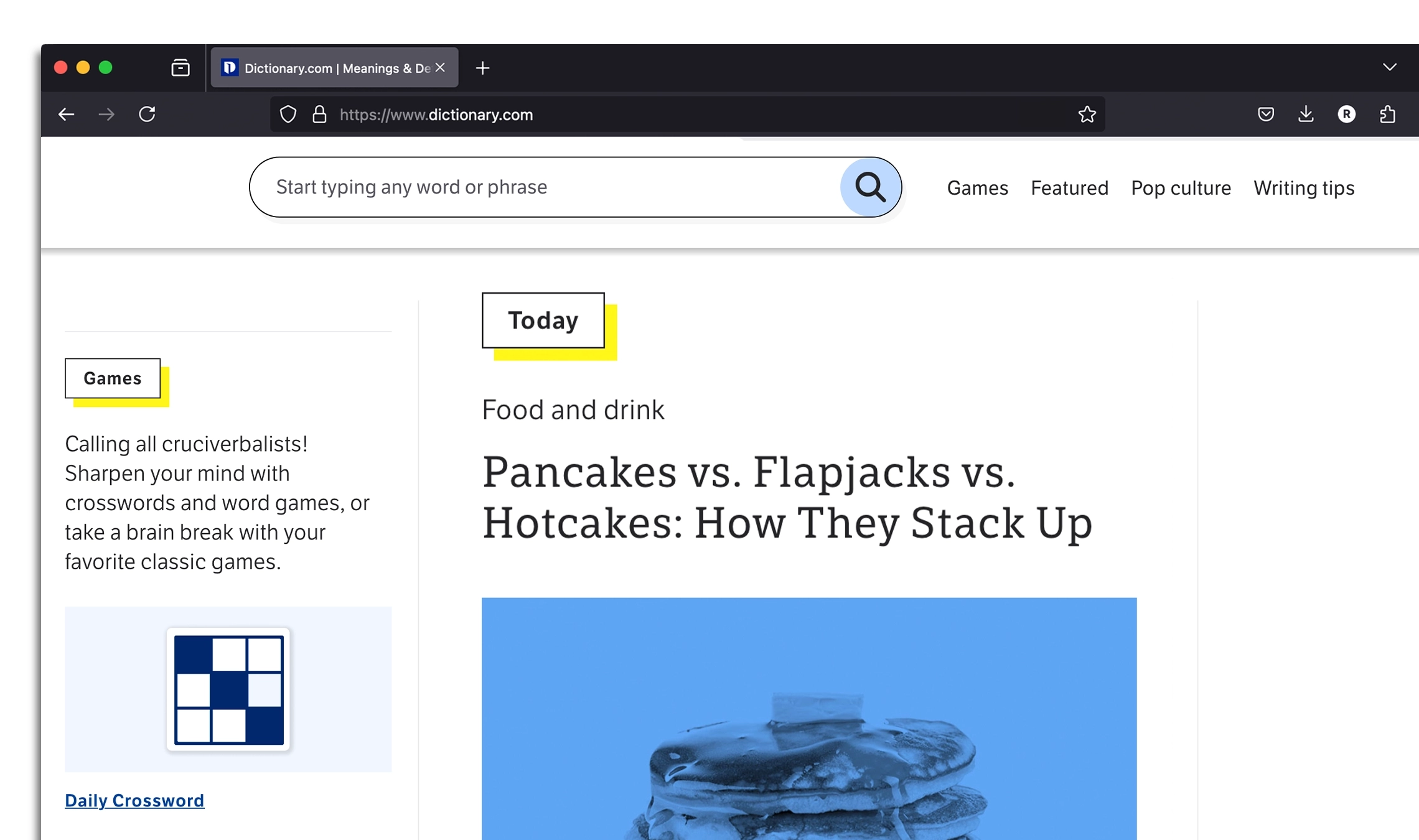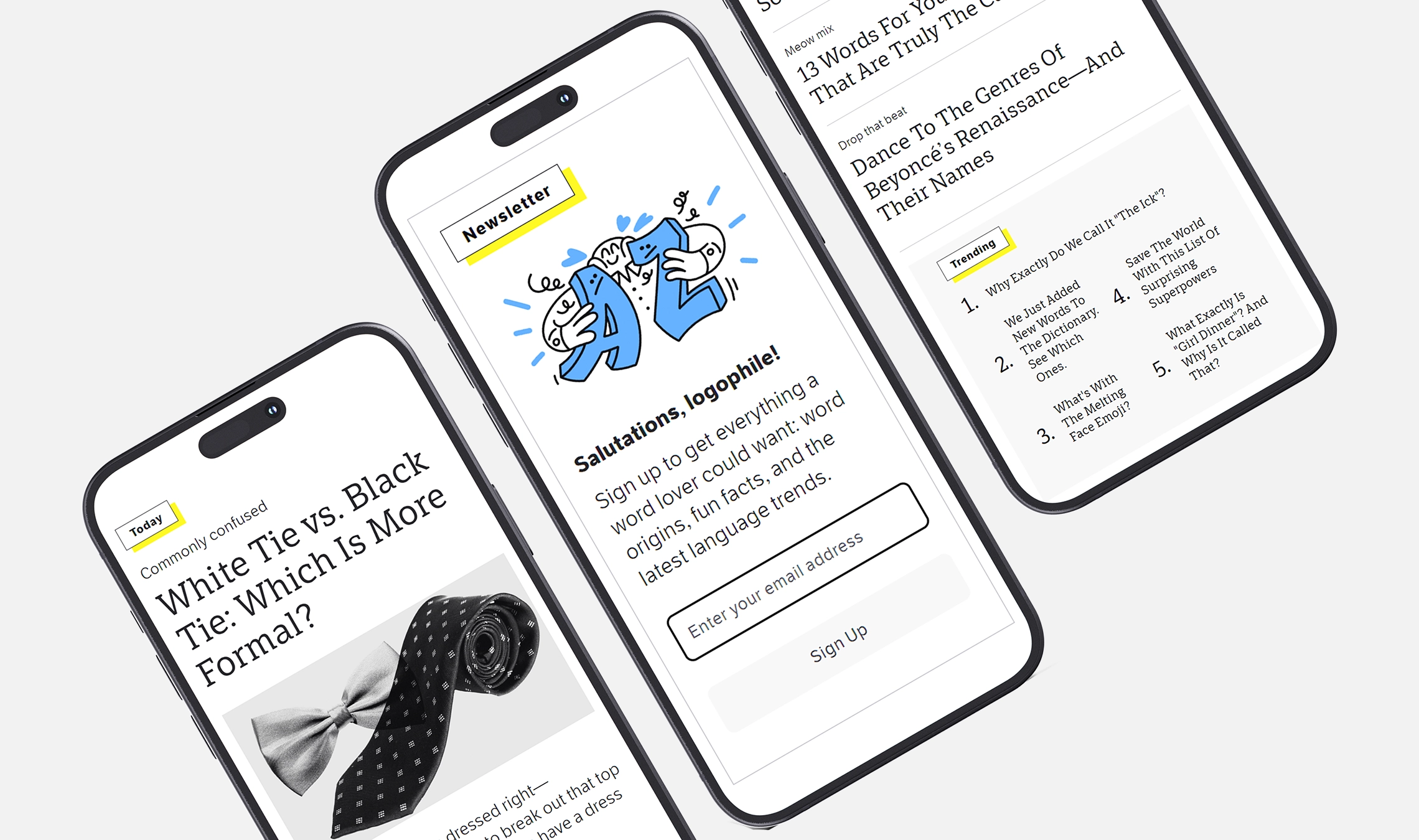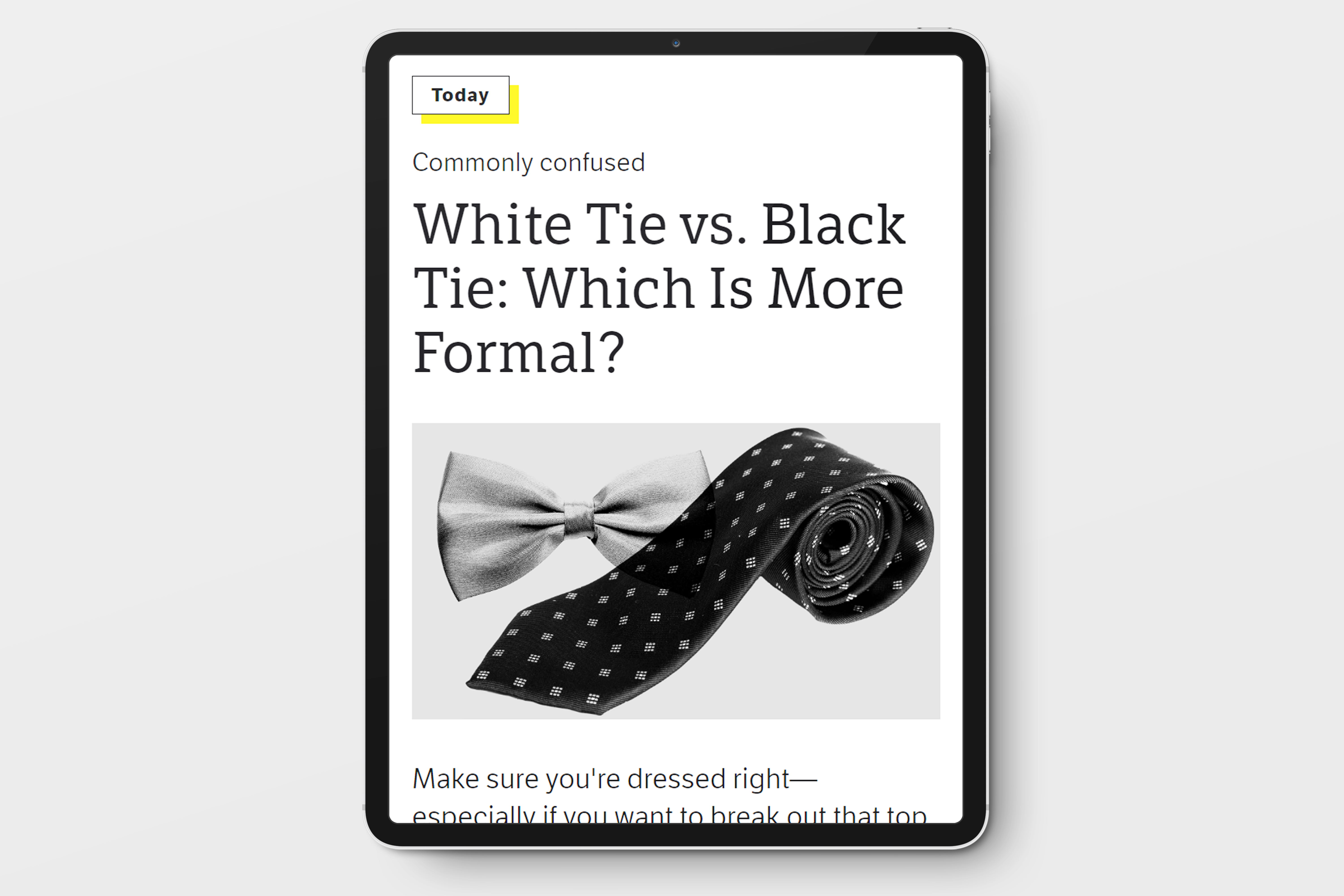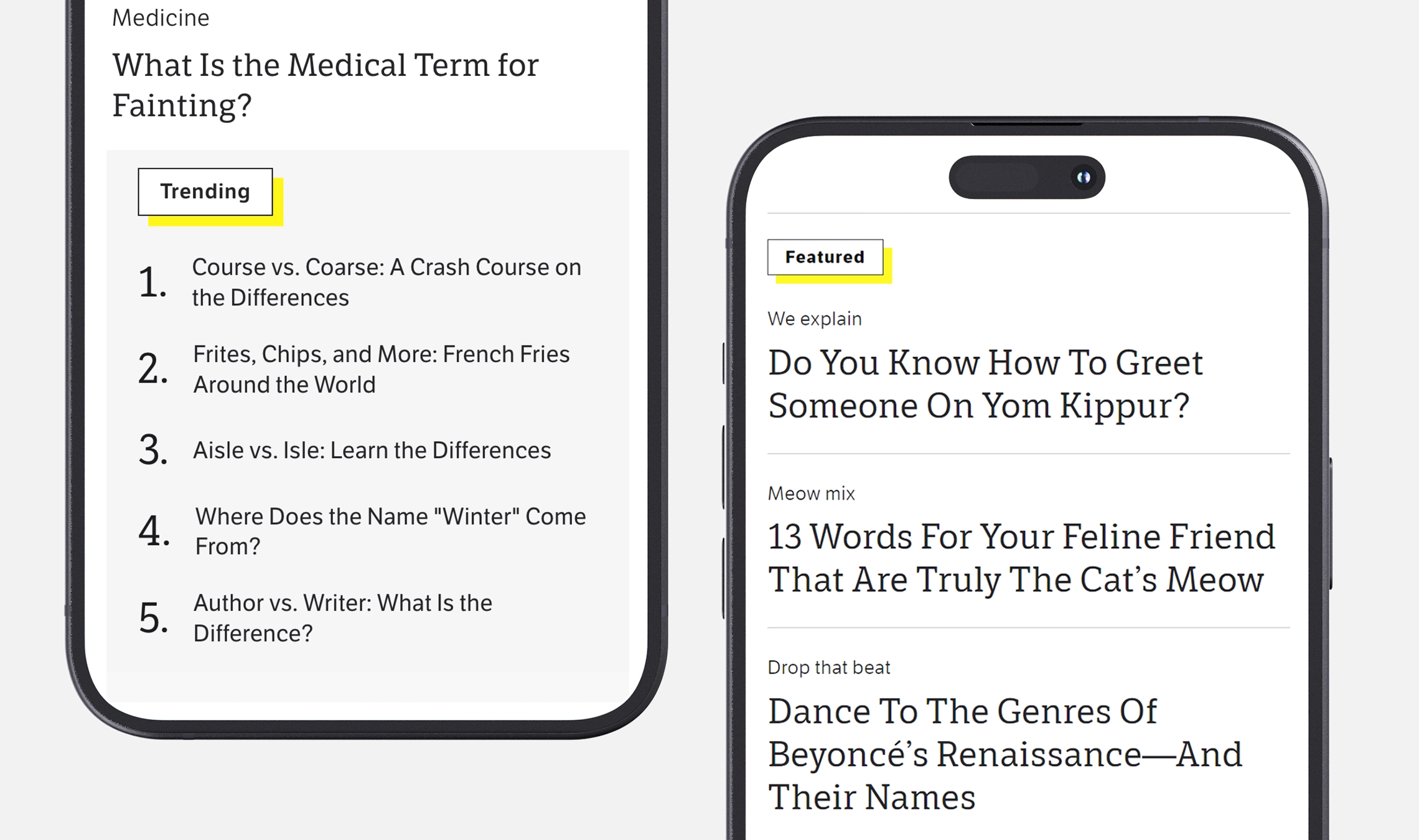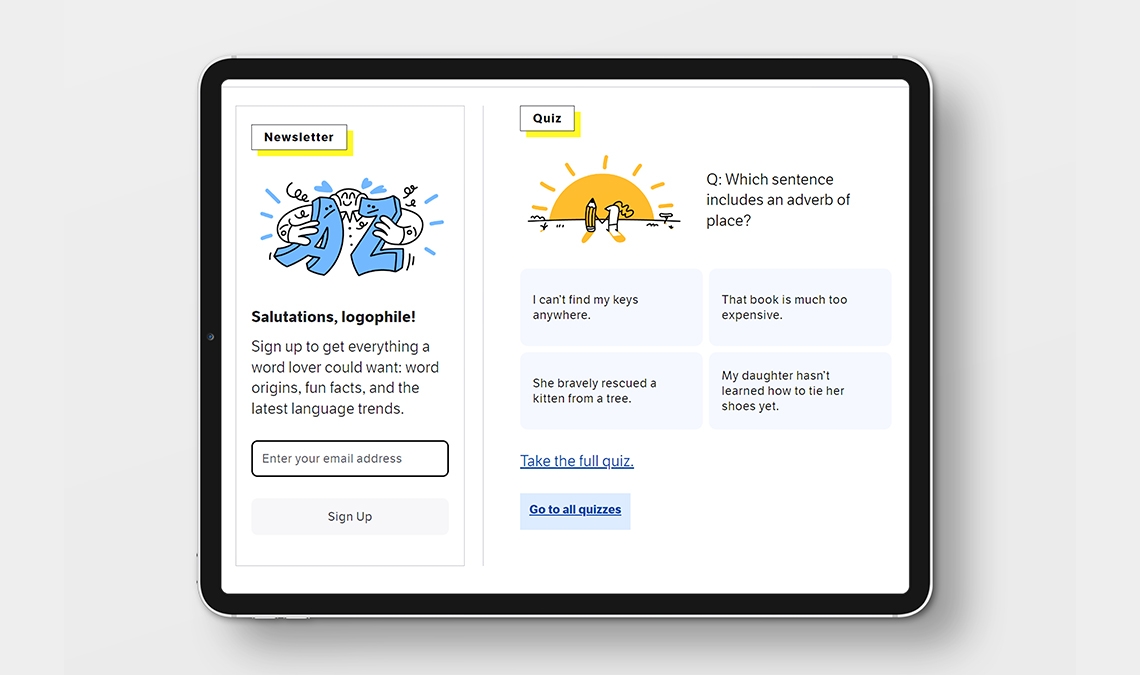
Words have meaning; they also carry a tone. No one knows better how to distinguish between connotation and denotation than dictionary.com, the foremost online resource for words and their meanings. Joined by its sister website, thesaurus.com, the two provide a command of the English language that inspires confidence and learning, depth and insight.
When a website is all about words, those words should have several properties: they should be readable, distinct, and attactive but not overwhelming. To facilitate a clear hierarchy, quick gathering of information, and easily-read text, dictionary.com and thesaurus.com chose Leftloft’s full Etica family for their rebrand. Besides the hierarchy and readability advantages, the Etica family imparts a sense of joy while reading. George Frederick explains more in this interview.
TypeTogether: Give us some background for dictionary.com. Can you tell us how many visitors use the website per month and how many entries are in the database?
George Frederick: Dictionary.com and its sibling, thesaurus.com, are household names. Since they launched as the first fully digital dictionary and thesaurus in 1995, they have accumulated a massive, loyal audience and a lot of words:
40 million unique visitors per month in the United States
An additional six million visitors per month worldwide
Two million newsletter subscribers
Roughly two million followers on social media
250,000 definitions in the database, plus 1.4 million synonyms
TT: What are users looking for from dictionary.com, and how did that translate into your design brief?
GF: Dictionary.com has a fantastic audience that basically breaks down into two types of people. The first are utility seekers. They look up definitions, synonyms, example sentences, and word origins. They have tasks to complete, jobs to do, homework to finish, and questions to answer — quickly. The second are language lovers. This core audience returns to dictionary.com regularly for the love of words and language. This is their space to enjoy the dictionary experience, to explore, celebrate words, and fulfill curiosity.
Addressing the needs of these two groups was challenging for our typeface selection, but less so for our redesigns. Our design strategies clarified as we worked through segments of our redesign. For example, we approached our homepage design as a digital abiding place for language lovers, a place to return and discover new material every day. This was a dramatic change of direction from the previous homepage design. Our definition and synonym pages were built for the utility seekers and involved a fascinating deep dive into lexicographic structure and design patterns. Uninformed innovation here could have introduced major usability issues.
Our redesign team — including representatives from design, product, and engineering — partnered closely with editors and lexicographers from our smart and talented content team to understand how design and typography could elevate and enrich the user experiences.
TT: Why did you choose TypeTogether’s LFT Etica and LFT Etica Sheriff families?
GF: Are you sitting comfortably? Because I could go on for a long time answering this question, but I’ll try to be succinct.
We were under a tight deadline for choosing new typefaces, with redesign, brand refresh, and design system projects beginning simultaneously. Plus, we were in the middle of a sitewide code refactor. We didn’t have the advantage of addressing these projects sequentially, so it didn’t matter if there was a more perfect way. We weren’t going to squander the rare opportunity to align our content, code, and design from a fresh start.
With everything swirling around us, we dedicated the proper time and focus to our typeface selection process. Our team set the parameters and decision-making chronology this way:
1. Established criteria:
- Readability
- Flexible family
- Balance of tone for our two audience types
- Inclusivity
- Technical integrity
- Great foundry/partner: easy to work with, responsive, helpful
- Cost: you get what you pay for, and free fonts are rarely best when they cost more in frustration, poor functionality, and lack of support
2. Facilitated typeface nominations
3. Narrowed our list to five finalists
4. Tested the finalist typefaces with users to evaluate readability and brand attribute alignment
5. Acquired test versions of the finalists and test-drove them to evaluate technical integrity and try the fonts in various use cases
6. Selected our winners: LFT Etica Sheriff and LFT Etica
7. Implemented our new fonts just in time to put them to work in our various projects
I’ll say a few more things. Typeface choice had a clear effect on readability, perception, and emotional engagement with the article experience. Etica Sheriff was the top performer in readability and look-and-feel, with Etica as the runner-up. But Etica came out on top in overall satisfaction and first impression, narrowly edging out Etica Sheriff. Of the two, Etica Sheriff had the greatest alignment with our brand attributes. The second thing is that the next-level quality of the typefaces plus the value of TypeTogether’s partnership are well worth the cost.